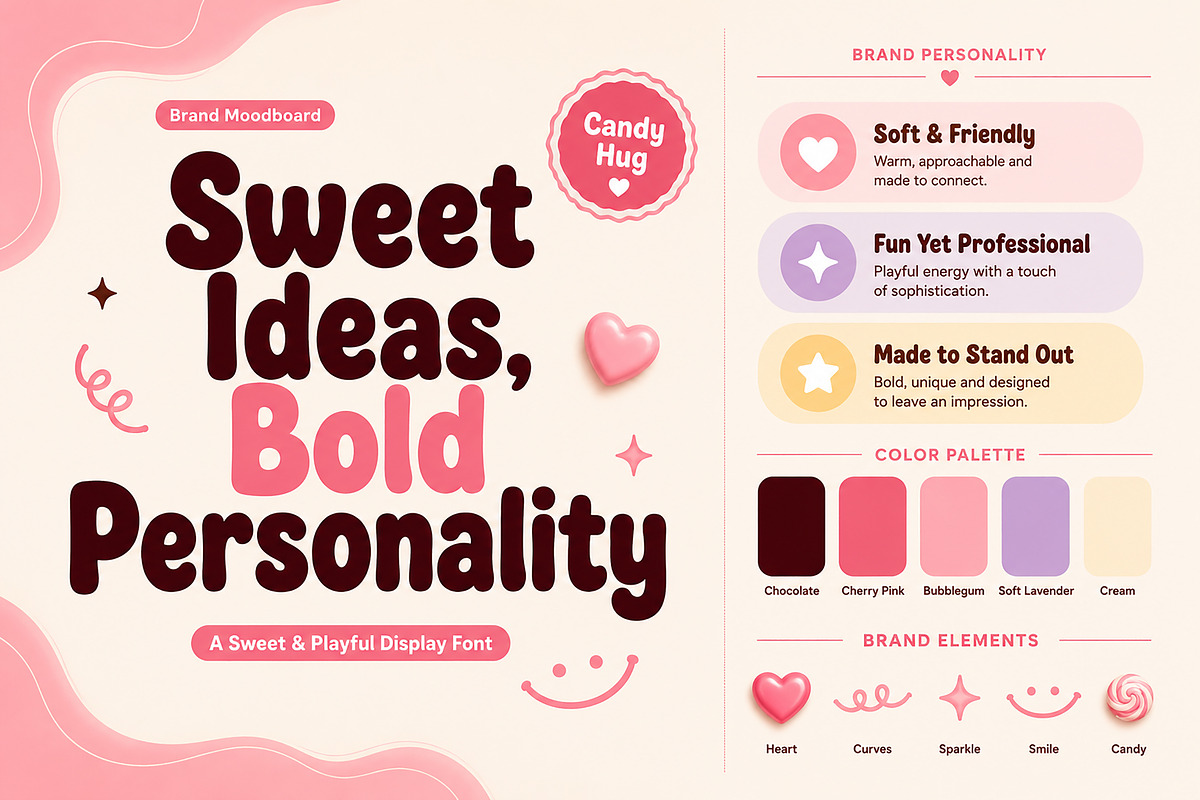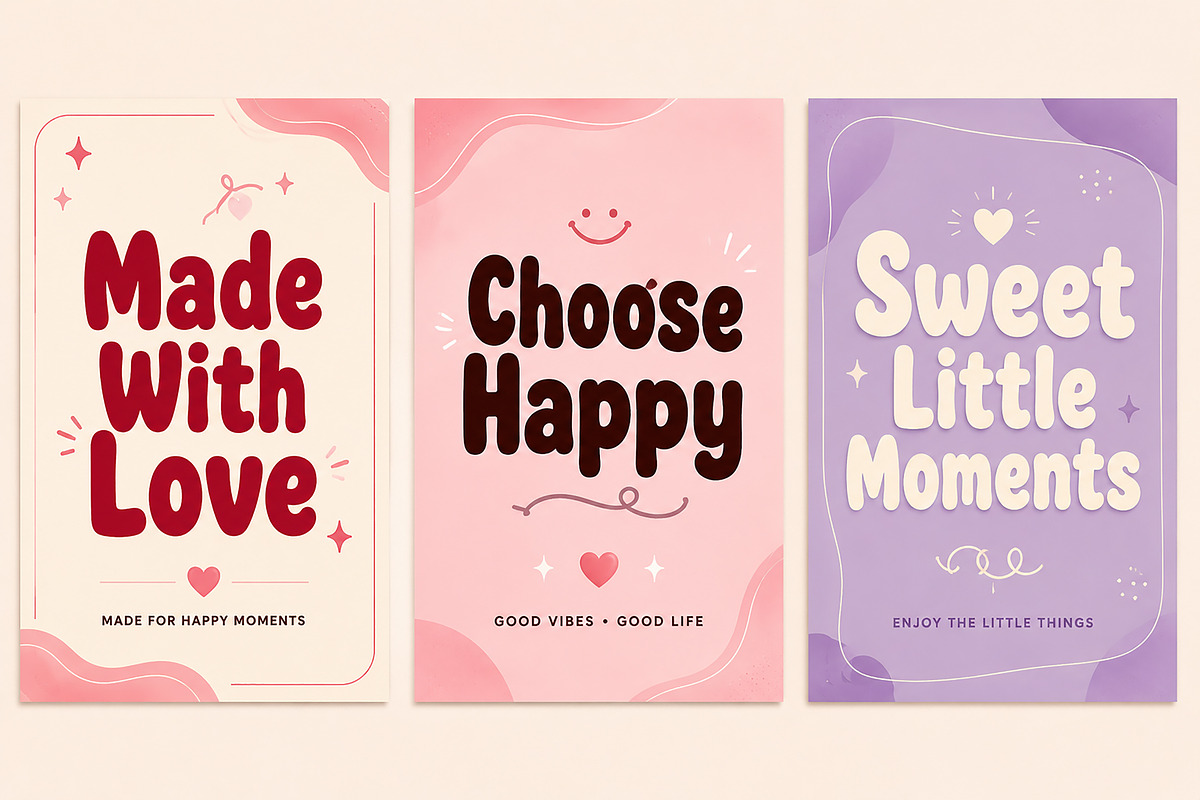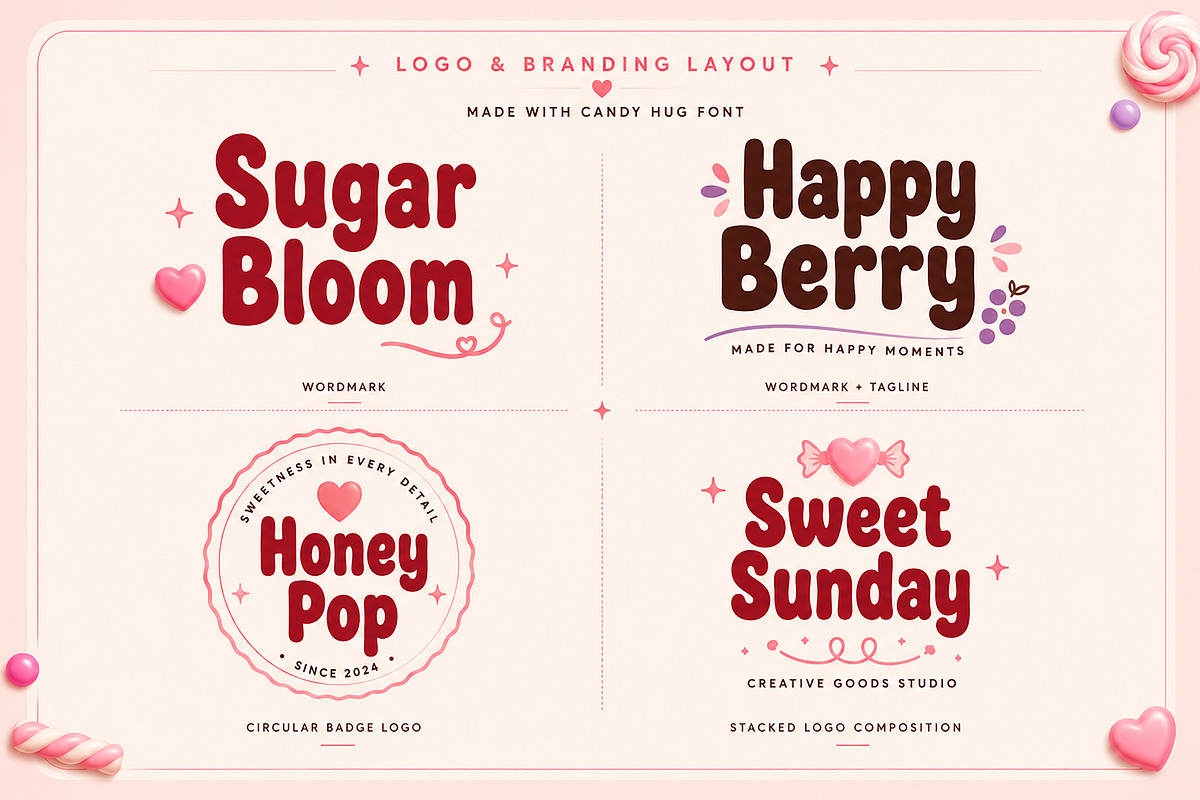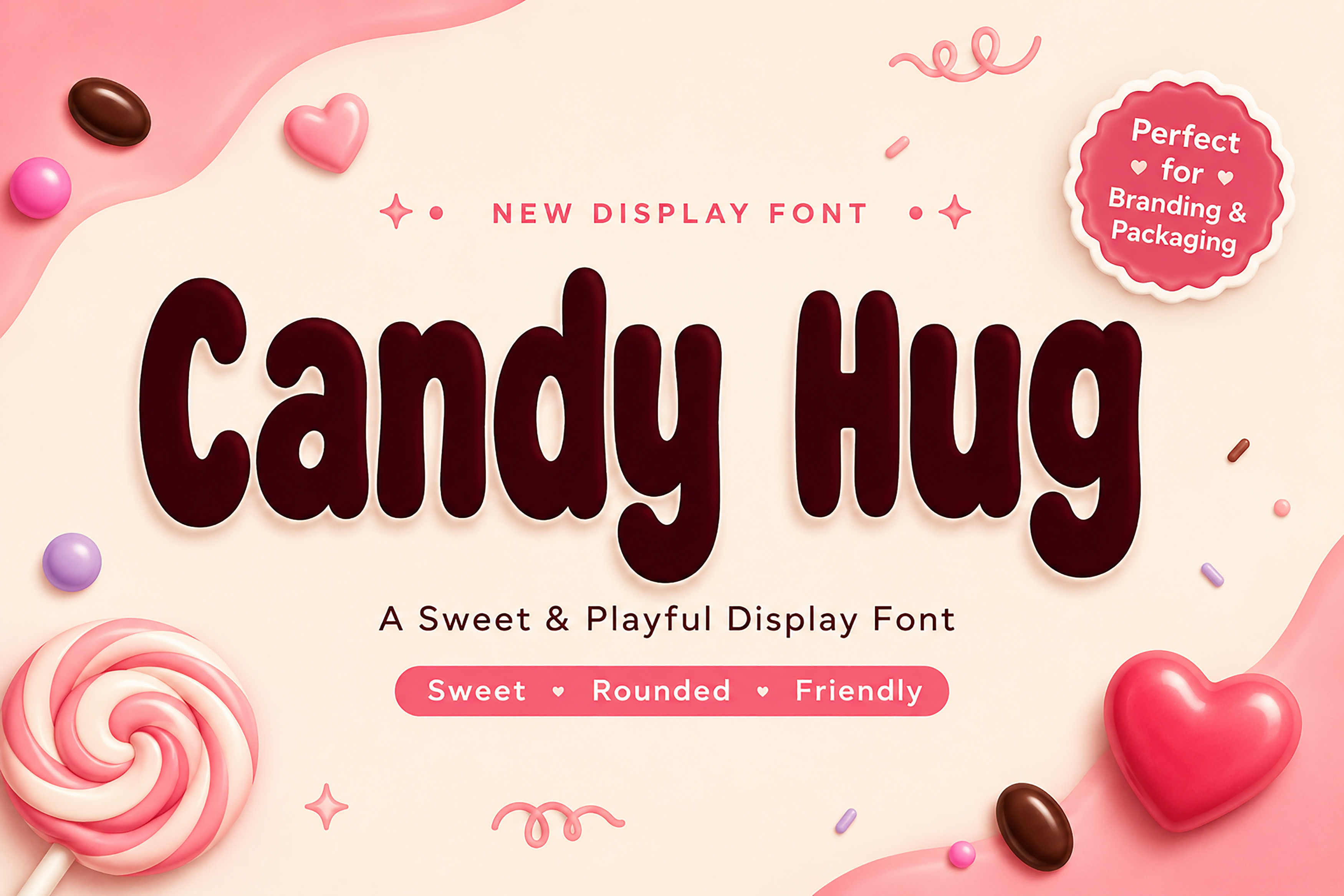
Candy Hug – Playful Display Font
Candy Hug – A Sweet & Playful Display Font
Candy Hug is a bold, rounded display font designed to bring warmth, charm, and personality to your creative projects. With its soft curves and friendly letterforms, this font is perfect for eye-catching headlines, playful branding, product packaging, social media graphics, posters, children's designs, greeting cards, and more.
Whether you're creating a fun logo, a sweet packaging design, or colorful marketing materials, Candy Hug adds a cheerful and memorable touch while maintaining a clean, professional look.
Branding
Posters & Headlines
Greeting Cards
Invitations
Stickers
Labels
Children's Products
T-Shirt Designs
Craft Projects
Printable Designs
Bold & Rounded Display Style
Clean and Friendly Appearance
Easy to Read
High-Quality Letterforms
Perfect for Large Titles